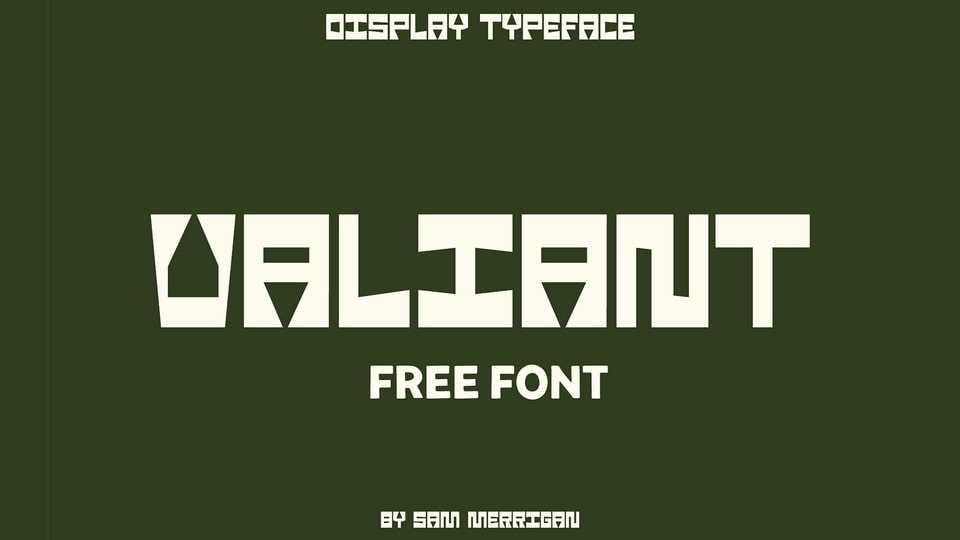
Download Valiant font, a bold and unconventional display typeface that stands out with its geometric forms, sharp angles, and high contrast, designed for maximum impact.
Designer: Sam Merrigan